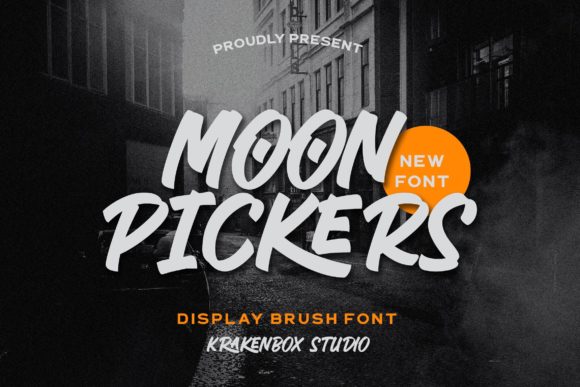
Calling all creatives, designers, and adventurers! Embark on an unforgettable typographic journey with Moon Pickers Font, the ultimate display font for truck lettering. Its rugged yet refined appearance, adorned with intricate inky textures, will ignite your inner artist and inspire your designs with an unparalleled urban flair.
Moon Pickers Font is a true masterpiece, thoughtfully crafted by the skilled hands of krakenboxstudio. Dive into a world of limitless possibilities, where each letter dances across your screen with a captivating vintage charm and a touch of modern elegance. Its versatility extends beyond truck lettering, making it an ideal choice for a myriad of creative endeavors.
With Moon Pickers Font, you'll become a typographic sorcerer, conjuring eye-catching logos, captivating posters, and awe-inspiring branding that will leave a lasting impression. Its urban edge will add a raw and edgy touch to your work, while its vintage undertones will evoke a sense of nostalgia and timeless appeal.
But what truly sets Moon Pickers Font apart is its exceptional ease of use. Encoded with PUA, this font grants you effortless access to a treasure trove of glyphs and ligatures, empowering you to unleash your creativity without boundaries.